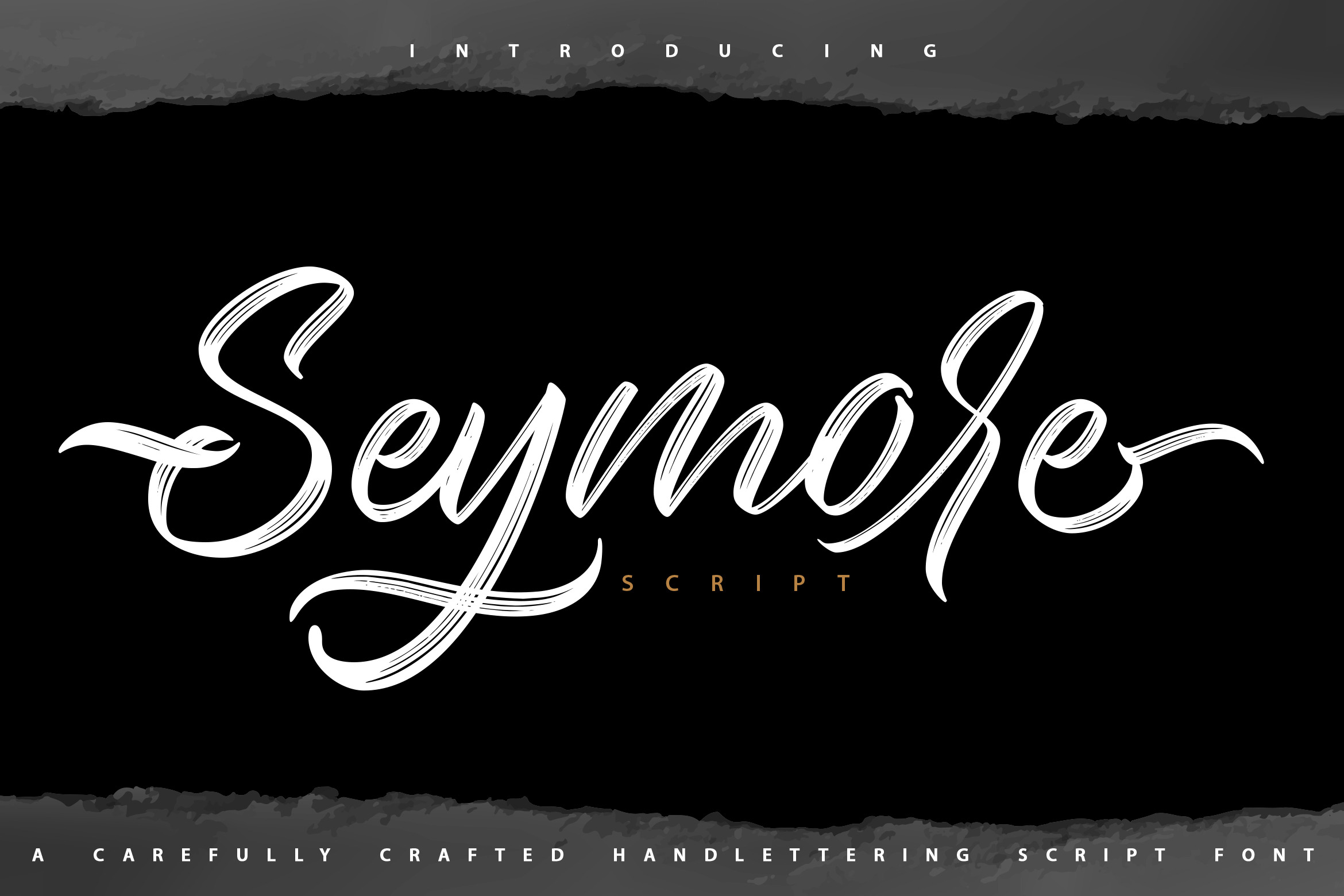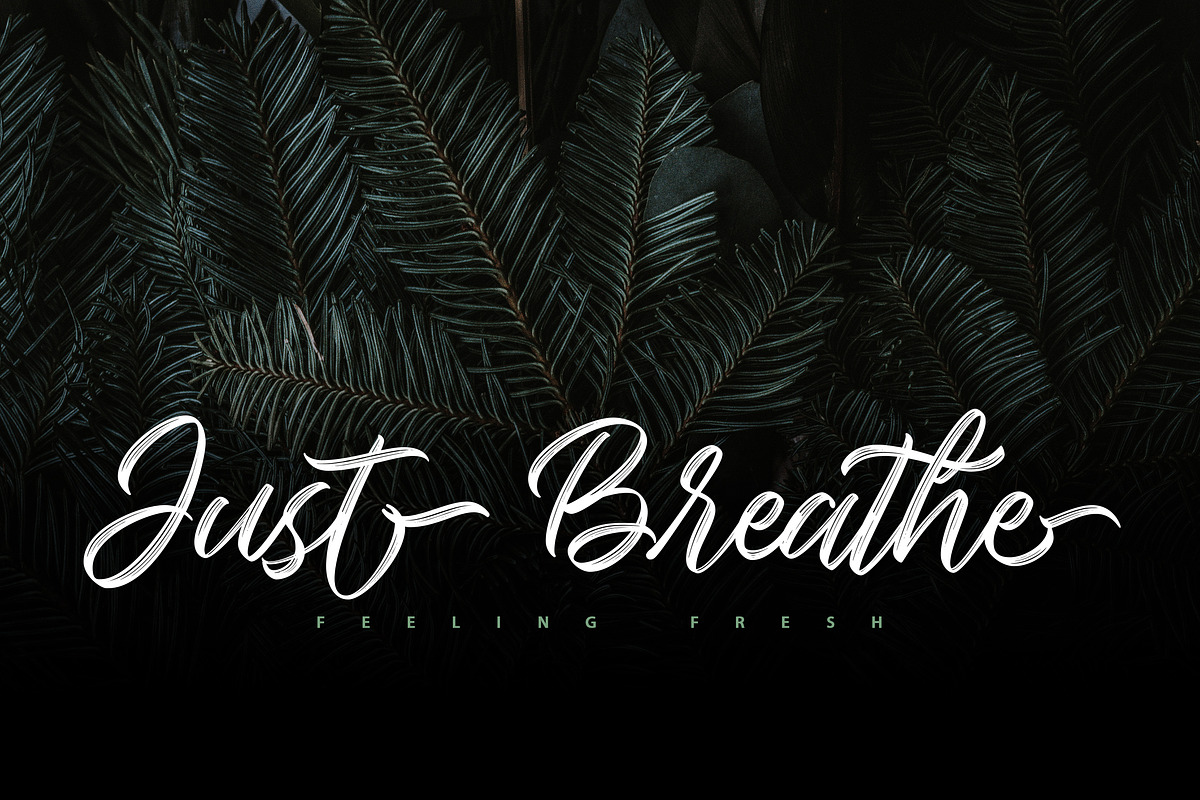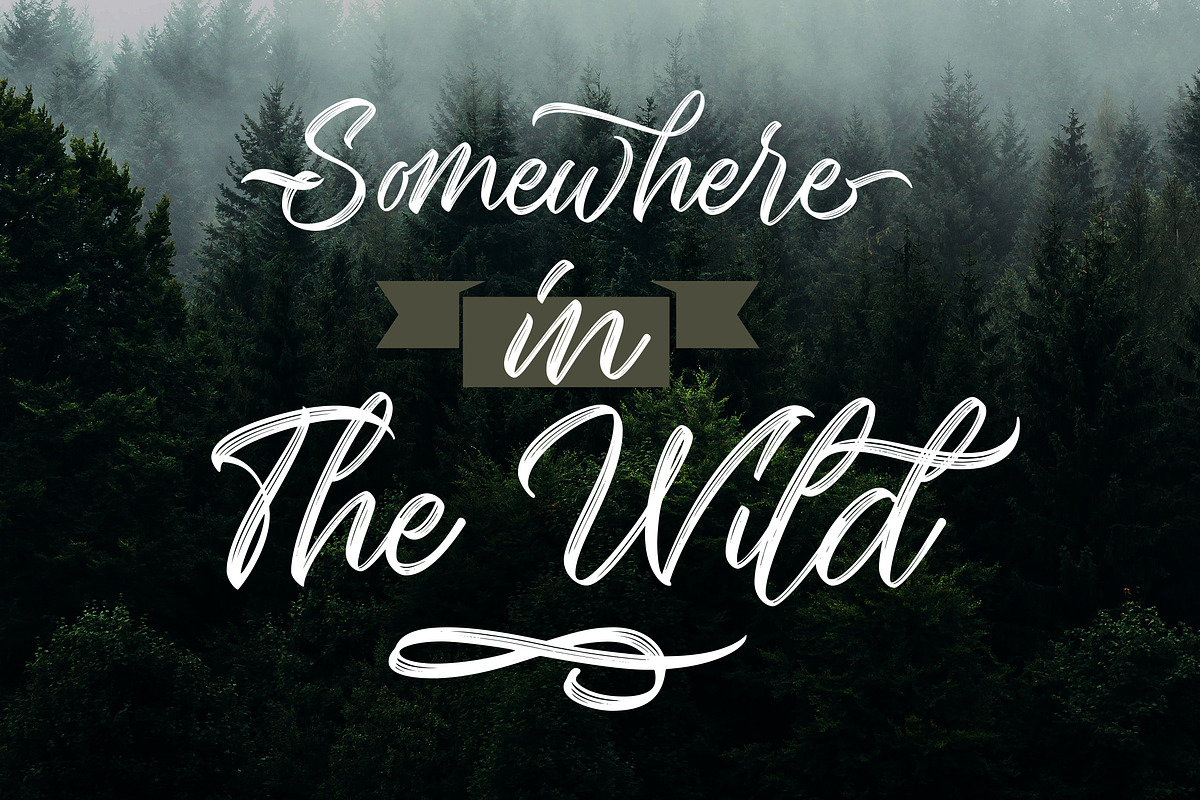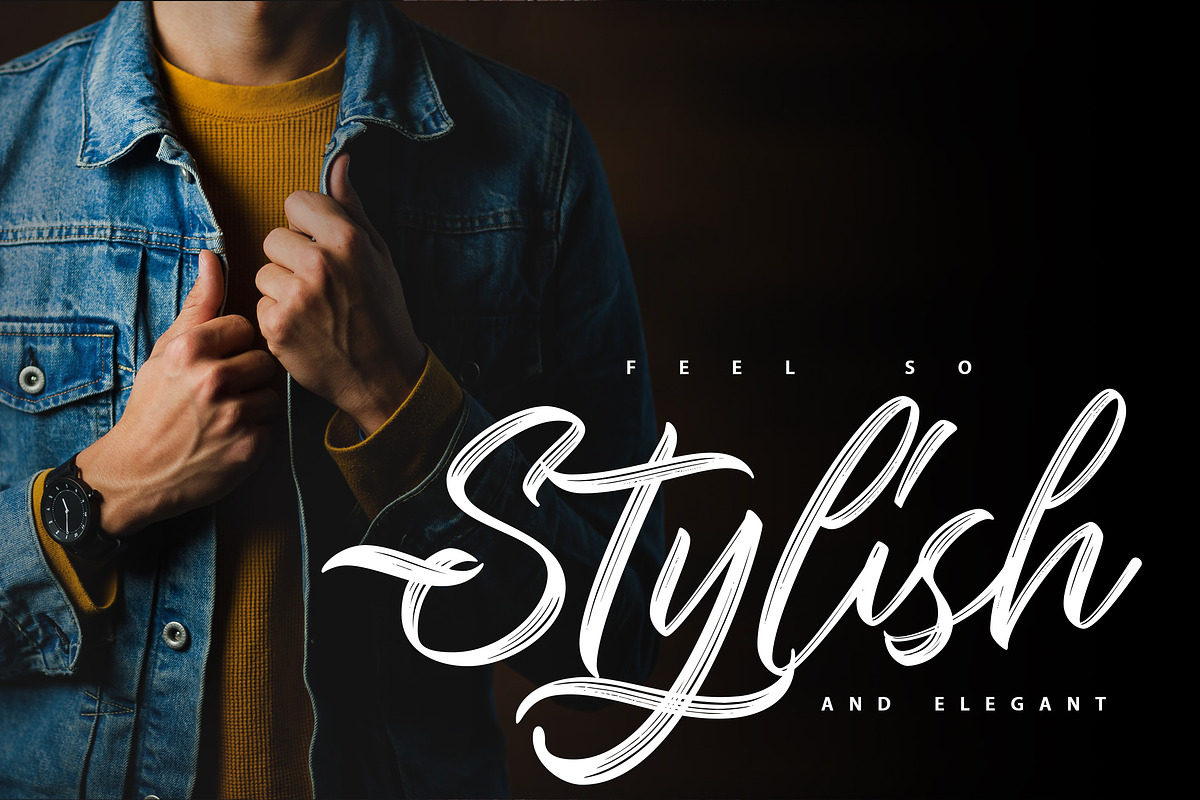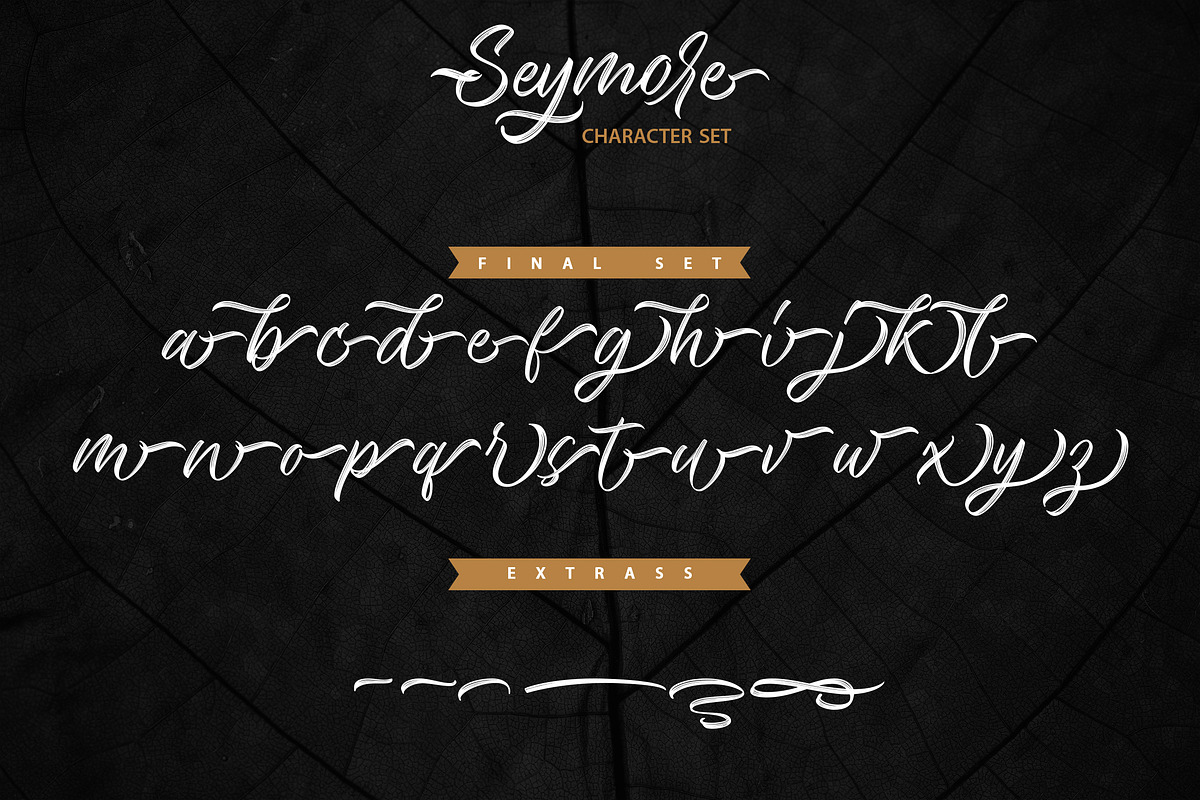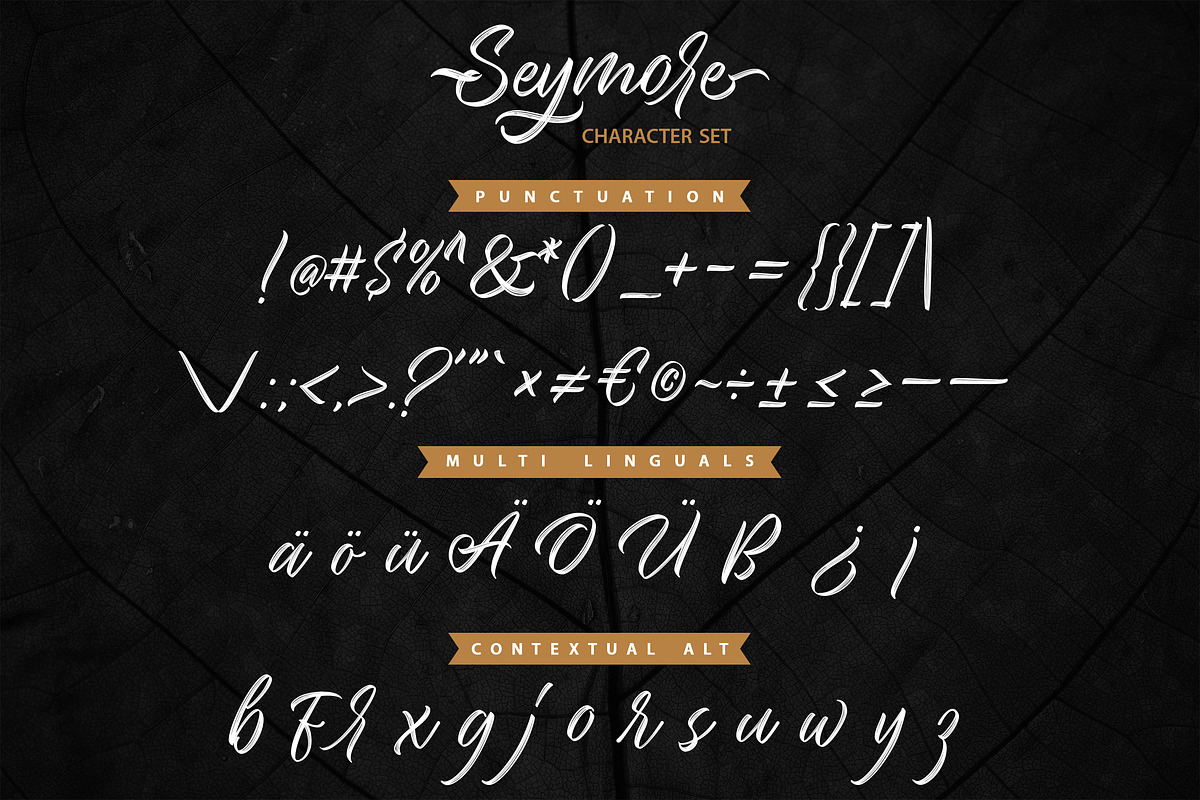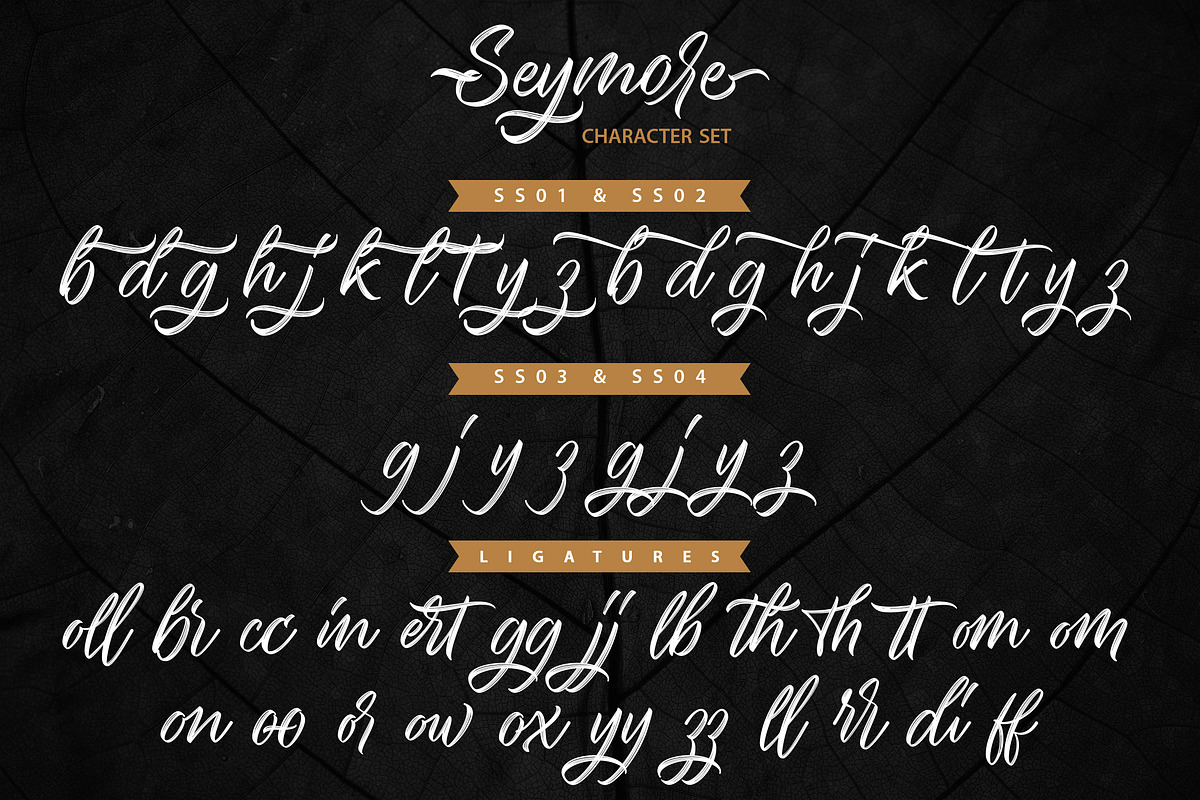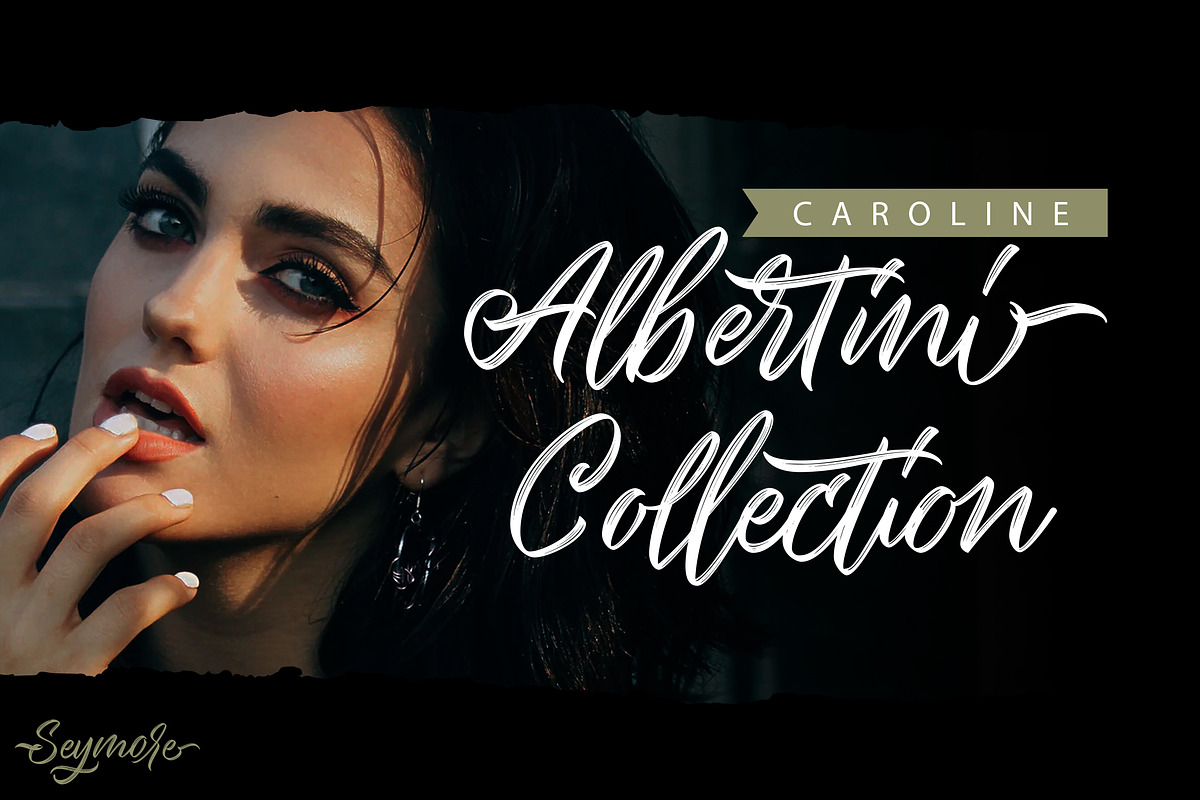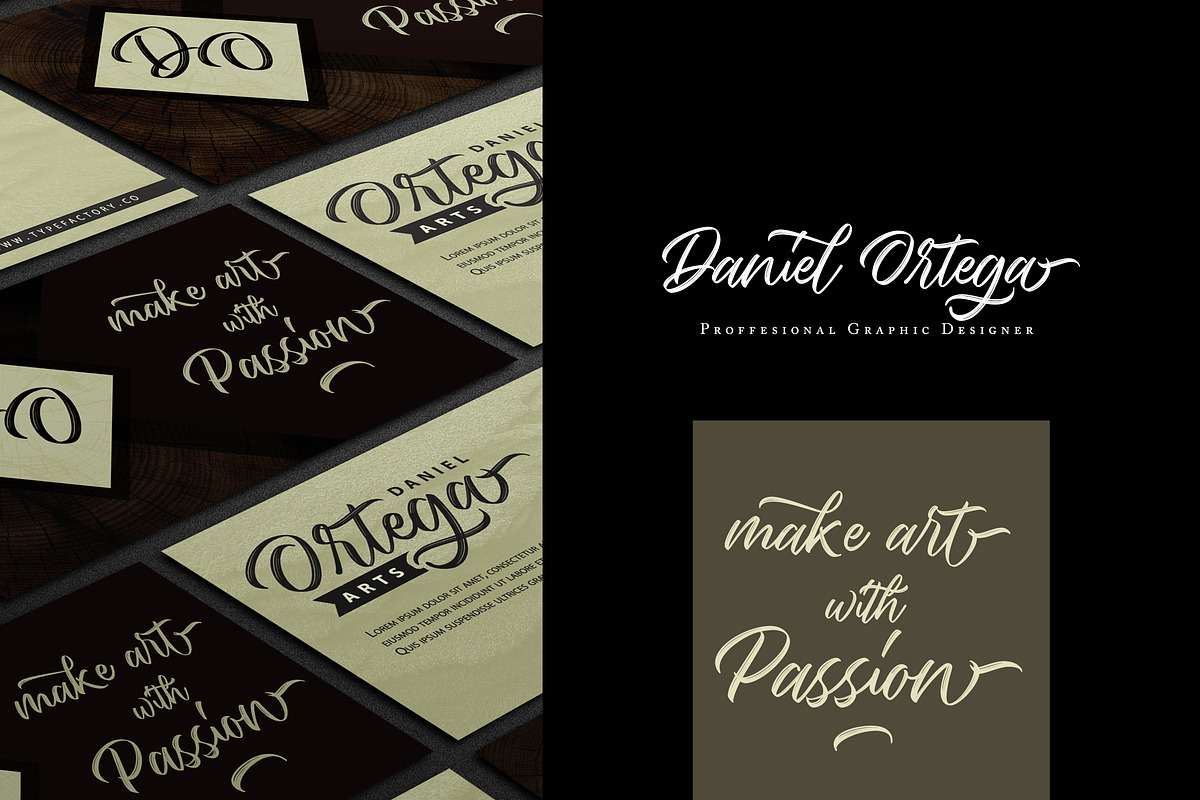
Seymore – Brush Script Font
Seymore is a Brush Script typeface, perfectly suitable for creating Brands, Art, lifestyle design such as logos, title, and magazine and more.